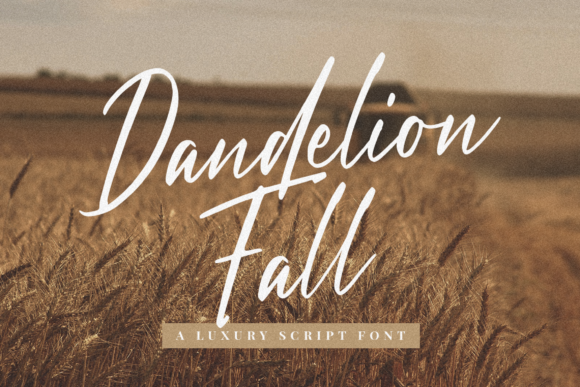
Dandelion Fall Font Review for Digital Campaign Design
Last Tuesday, while finalizing assets for a seasonal lifestyle brand launch, I found myself staring at a mockup that felt technically correct but emotionally flat. The layout was clean, the product photography was sharp, and the copy was persuasive, yet the headline lacked the organic warmth necessary to stop a scrolling thumb. This is a common friction point in digital marketing where standard typography fails to convey authenticity. Switching the display text to Dandelion Fall transformed the visual hierarchy instantly. Dandelion Fall is an exquisite handwritten font, masterfully designed to become a true favorite for campaigns requiring a balance of elegance and approachability. It maintains its classy calligraphic influences while feeling contemporary and fresh, making it a strategic asset rather than just a decorative afterthought. When you fall in love with this typeface, it is usually because it solves the specific problem of making digital content feel human without sacrificing professional polish.
Dandelion Fall for Instagram Stories and Social Media Engagement
When integrating Dandelion Fall into social media graphics, specifically for Instagram Stories and Reels covers, the font’s performance hinges on its ability to remain legible against dynamic backgrounds. As a premium Script Handwritten option among modern Fonts, it offers distinct advantages for short-form video overlays and static story updates. In a recent campaign test involving a "behind-the-scenes" content series, using this typeface for teaser text created an immediate sense of intimacy and exclusivity. The letterforms have enough weight to stand out against busy photography or video footage, yet the strokes retain a delicate fluidity that prevents the design from looking heavy or outdated. For social media managers, this means you can use Dandelion Fall for primary hooks or emotional keywords without needing excessive drop shadows or background boxes that clutter the mobile viewing experience.
However, practical application requires restraint. While the font excels at capturing attention in fast-scrolling feeds, it functions best as a display element rather than body copy. During A/B testing for story engagement, headlines set in Dandelion Fall consistently outperformed standard sans serifs for emotional resonance, but only when limited to three to five words. Longer phrases began to lose their impact due to the intricate connections between characters. For marketers building template packs or recurring content series, this typeface serves as an excellent anchor for branding consistency. It signals to the audience that the content is curated and personal, distinguishing your brand voice from competitors relying on generic system fonts. Just ensure you are utilizing the OpenType alternates to avoid repetitive character shapes in adjacent words, which can break the natural flow of the handwriting aesthetic.
Using Dandelion Fall for Email Marketing Headers and Webinar Banners
In the context of email marketing headers and webinar promotional banners, Dandelion Fall acts as a powerful conversion driver by softening the transactional nature of digital communication. Fonts in this category often struggle in email clients due to rendering inconsistencies, but this particular Script Handwritten family holds up remarkably well across major platforms when used correctly. When designing a header for a seasonal sale announcement, replacing a rigid geometric title with Dandelion Fall increased the perceived value of the offer. It shifted the tone from a loud advertisement to a personal invitation, which aligns perfectly with current consumer preferences for authentic brand interactions. The key here is scale; because email previews are often viewed on small mobile screens, the font size must be generous enough to preserve the fine details of the calligraphic strokes.
For webinar banners specifically, the font helps bridge the gap between professional education and community connection. A sterile banner suggests a boring lecture, whereas Dandelion Fall implies a workshop led by a real person. This psychological cue is subtle but significant for sign-up rates. However, avoid using this typeface for critical logistical information like time zones or pricing tiers. Its artistic nature introduces cognitive load that is inappropriate for data-heavy elements. Reserve Dandelion Fall for the event title or the thematic tagline, and let a clean, structured typeface handle the operational details. This division of labor ensures your campaign remains both beautiful and functional.
Pairing Dandelion Fall with Sans Serif Fonts for Landing Pages
Effective font pairing is non-negotiable when deploying Dandelion Fall on high-stakes landing pages or sales funnels. As a distinctive Script Handwritten choice among commercial Fonts, it demands a supporting typeface that provides stability and readability. In a recent product launch workflow, pairing Dandelion Fall with a neutral, geometric sans serif created a sophisticated tension that guided the user’s eye naturally down the page. The script handled the emotional headlines and benefit-driven subheads, while the sans serif managed the feature lists and testimonials. This combination prevents the design from becoming overly sentimental or difficult to scan, which is a common pitfall when using expressive typography in conversion-focused environments.
The versatility of Dandelion Fall also extends to YouTube thumbnails and Pinterest pins, where text must be instantly decipherable at miniature sizes. On Pinterest, where vertical aspect ratios dominate, this font works exceptionally well for overlaying quotes or tutorial titles. Its vertical rhythm complements the platform's native format better than wide, condensed typefaces. For YouTube thumbnails, however, caution is advised. The intricate ligatures that make Dandelion Fall exquisite at large sizes can turn into visual noise when compressed to 1280x720 pixels. If using it for video thumbnails, stick to single-word emphasis or very short phrases, and always preview the design at actual display size before publishing. Additionally, before integrating this typeface into any paid ad set or client deliverable, verify the commercial licensing terms. Ensuring you have the correct license for digital advertising, merchandise, or template redistribution protects your campaign from legal risks and supports the type designer’s work. Ultimately, Dandelion Fall is a tool for adding soul to digital strategies, provided it is wielded with intention and respect for readability standards.